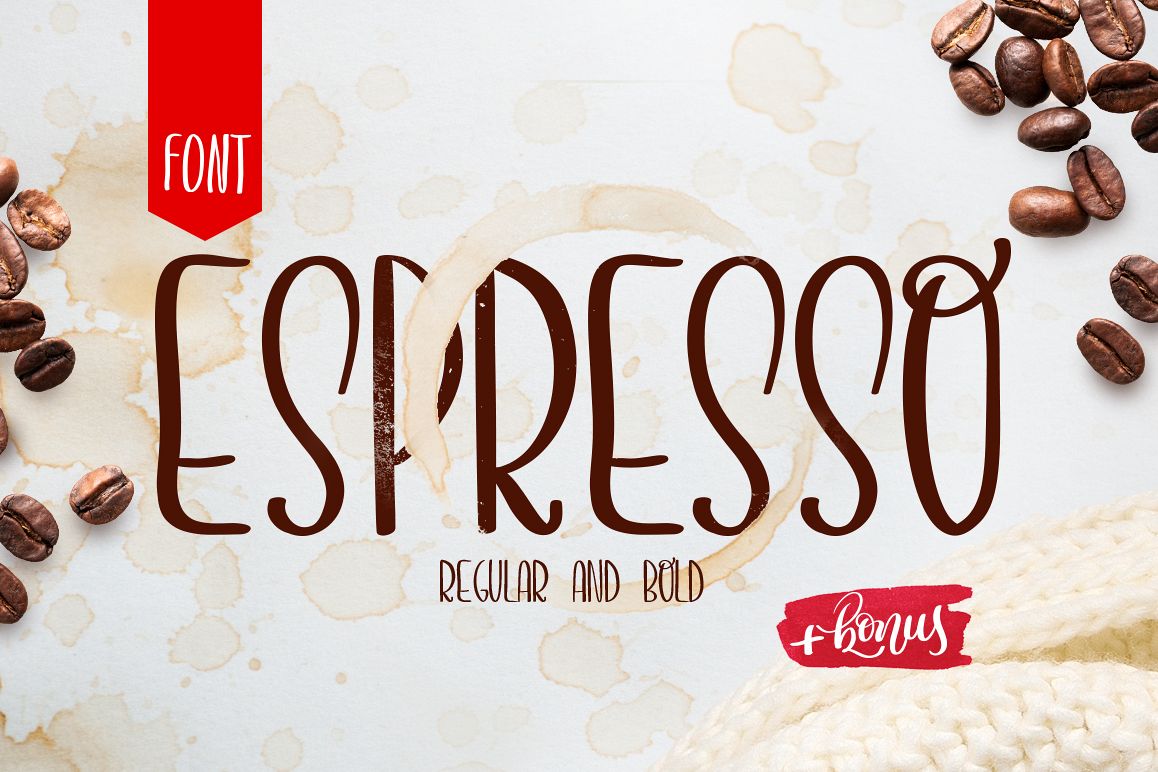
Espresso font
Espresso is the font is to help yourself while enjoying the world. Holiday, fun, and lightness of spirit. Espresso is a dedication for the traveler and the adventurous person, also perfect for different design themes. This font is fun to be used by all design needs, both for adults and children. This font contains standard characters, numbers, punctuation and some international characters.
Espresso is Regular and Bold unique handmade font that give a charm and romantic holiday greeting cards, invitations, design for postcard, instagram, pintesest, etc.  It`s elegant lettering font like a light breeze give freshness and dreaminess to your handmade creations.
PERFECT FOR
Decorate your albums, greeting cards (Christmas, Birthday, other holidays), logos, phrases, gift shops, internet shops presentation.